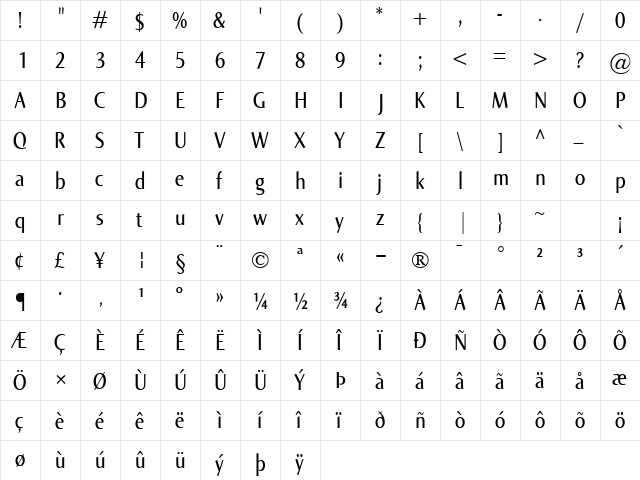
Norma Cond Regular
Design Context for Norma Cond Typeface
Norma Cond takes a measured approach to typography — its balanced proportions and neutral character make it a reliable workhorse for both digital and print work. Its narrow stance lets it pack a punch even in space-constrained designs.